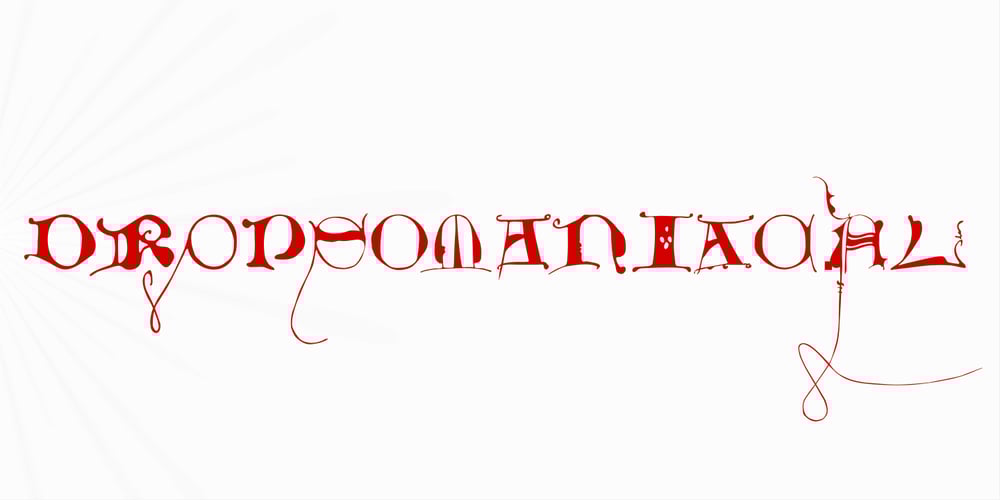
Dropsomaniacal Font Family was designed by Shane Brandes and published by Proportional Lime. Dropsomaniacal contains 1 styles and family package options. Drop Caps happen. They started off life as decorated initials way back when in the days of illuminated manuscripts. Then printing came and they became the work of the rubricators and then somewhere soon after printing began, at least by the 1490’s, they were printed directly into the text. This then is a collection of over a hundred glyphs from that closing decade of the Incunabula period. All of them are based on examples found in the works printed by Michael Wenssler in Basel. This font also contains a few useful pointing hands and a set of spacing characters.